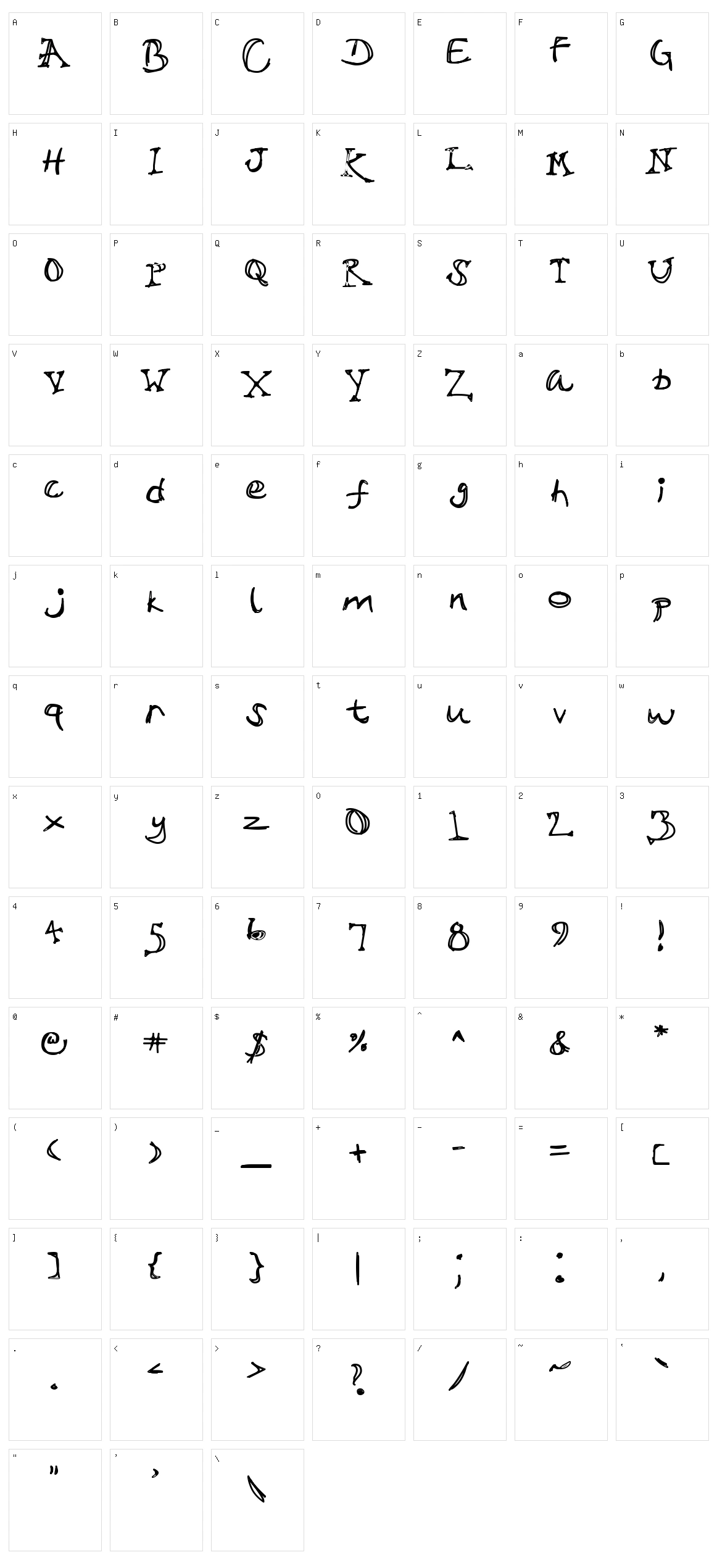
The free font Sir Talks A Lot is carefully designed by Stardrop Studios, showcasing a thoughtful balance of creativity and usability and falls under the Script font style. When you download the ZIP file, it contains only 53.4 KB of font files, making it lightweight and quick to download. Please review the license details below to understand permitted usage and distribution rights. If license information is not available, we recommend using this font for personal projects only or contacting the author directly for commercial usage permissions.